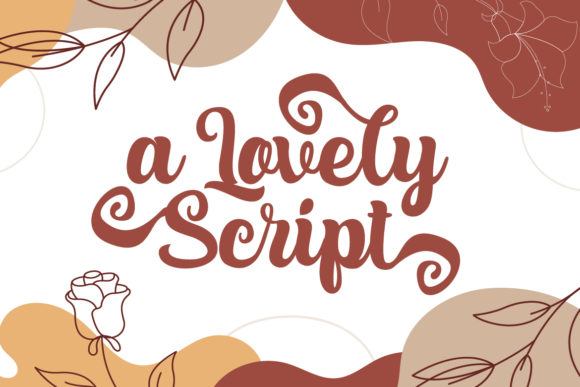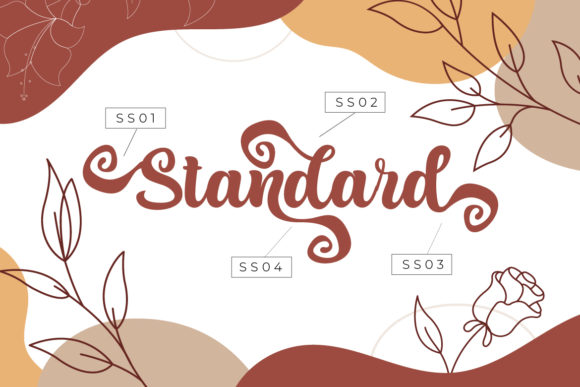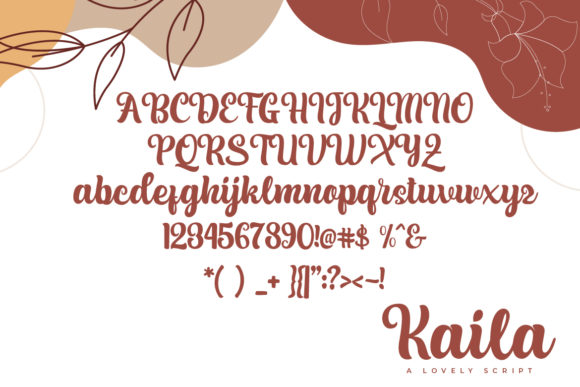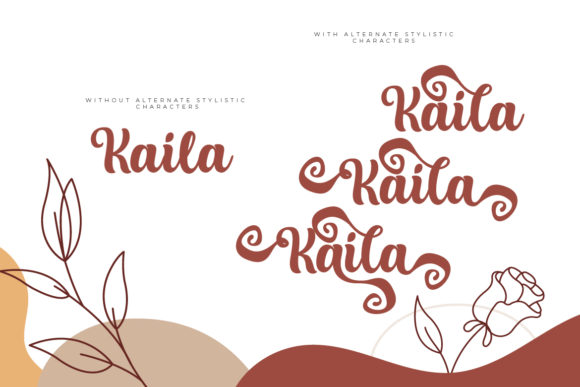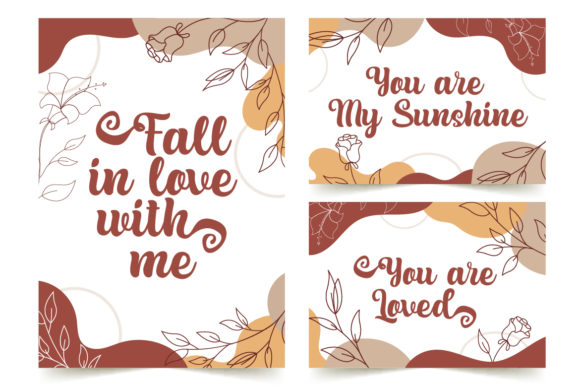
Kaila Font
About Kaila Font
Kaila is a versatile script font. Its authentic look and swashes make it perfect for wedding invitations, logos, posters, stationery and much more!